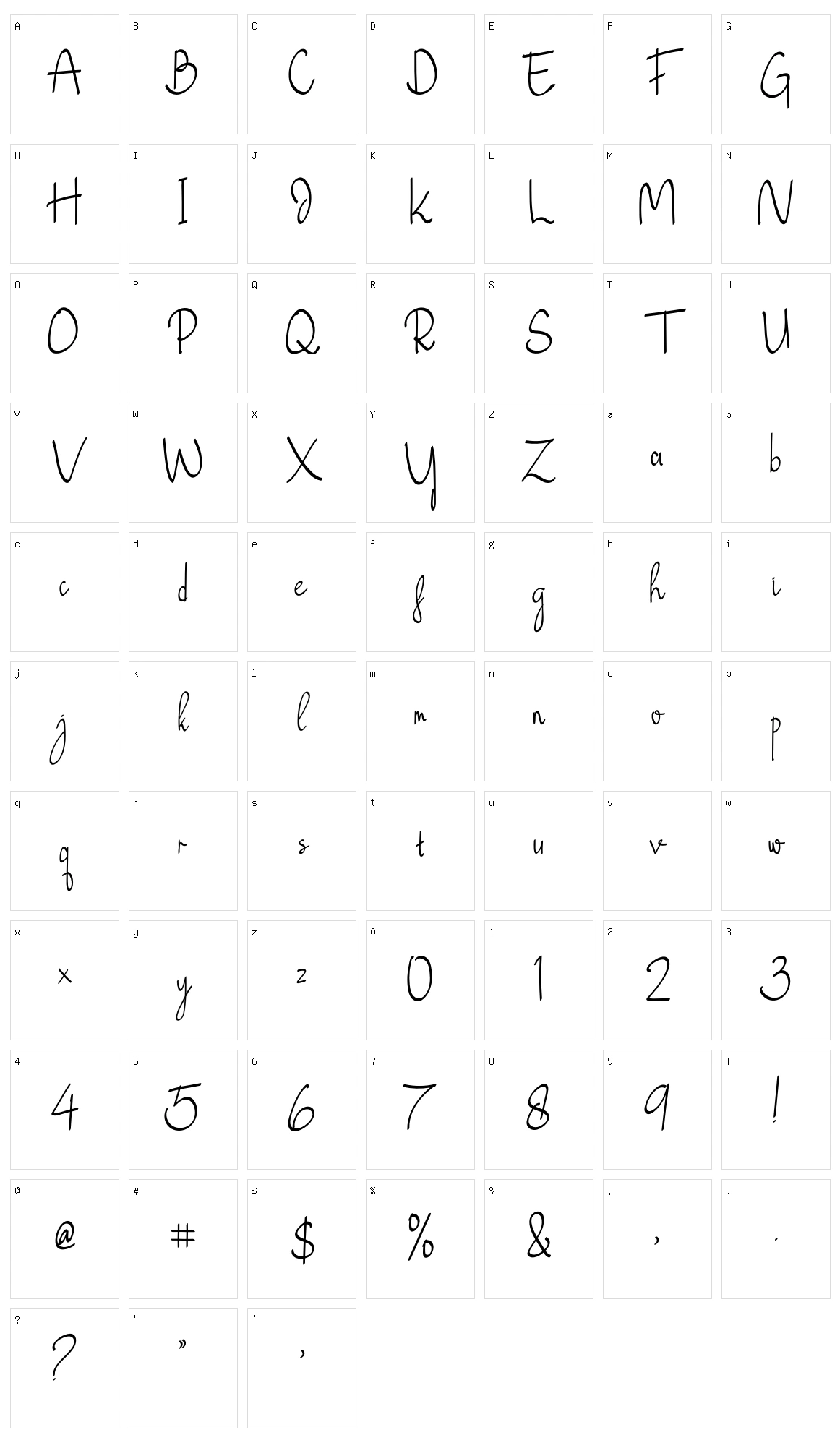
The free font Just Blossom is carefully designed by Rantautype, showcasing a thoughtful balance of creativity and usability and falls under the Script font style. When you download the ZIP file, it contains only 75.18 KB of font files, making it lightweight and quick to download. Please review the license details below to understand permitted usage and distribution rights. If license information is not available, we recommend using this font for personal projects only or contacting the author directly for commercial usage permissions.